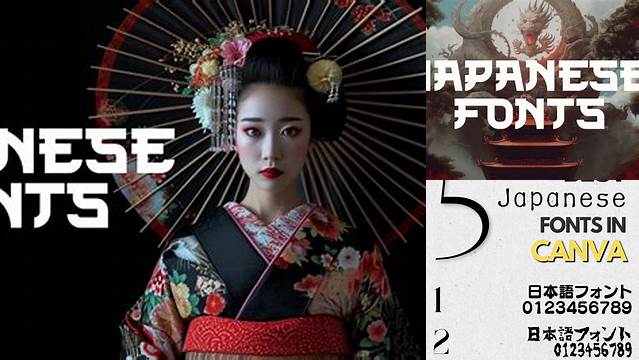
Free Japanese Fonts Generator: Your Ultimate Guide
Are you looking to spice up your designs with some awesome Japanese fonts? Well, you're in luck! This article is your ultimate guide to the free Japanese fonts generator world. We'll dive deep into how these generators work, the best ones to try, and some pro tips to make your designs pop. So, grab a cup of coffee, sit back, and let's get started, guys!
What is a Free Japanese Fonts Generator?
Alright, first things first: What exactly is a free Japanese fonts generator? Basically, it's a cool online tool that lets you create text using Japanese fonts. Think of it as your personal font playground! You can type in any text, choose from a variety of Japanese fonts, and see how it looks instantly. These generators are super handy for a bunch of things, from designing eye-catching graphics for social media to creating unique logos or even just experimenting with different font styles. And the best part? They're usually completely free to use!
Now, you might be wondering, why use a generator instead of just downloading fonts? Well, generators often have a pre-selected library of fonts that are ready to go, which can save you the hassle of searching and installing fonts on your computer. Plus, some generators offer extra features like text effects, color options, and the ability to download your text as an image. It's like having a mini-design studio at your fingertips. The key is to find a generator that suits your needs and offers the fonts you're looking for. Remember, the goal is to find something that's easy to use and helps you achieve the look you want. Don't be afraid to experiment and try out different generators until you find the perfect fit. There are tons of options out there, so the sky's the limit when it comes to Japanese font designs. So, get creative and have fun with it! You might discover some hidden gems and create designs that you never thought were possible. The world of Japanese fonts is waiting for you to explore.
Choosing the right generator can be a game-changer in your design process. Some generators specialize in specific font types, like calligraphy or modern styles, while others offer a wider range. Consider what kind of design you're working on and what aesthetic you're aiming for. If you're going for a traditional look, you might want to look for generators with classic calligraphy fonts. For a more modern feel, opt for generators that offer clean, sans-serif fonts. Also, don't forget to check the generator's features. Does it offer options for text effects, like shadows or outlines? Can you change the text color or background? These features can significantly enhance your designs. Make sure the generator is user-friendly, too. Look for a clean interface that's easy to navigate. You don't want to spend hours trying to figure out how to use the tool. The quicker you can get started, the better! Experiment with different generators and see which ones you find the most intuitive. Finally, think about the output options. Can you download your text as an image file (like PNG or JPEG)? Can you copy and paste the text directly into your design software? These options will make it easier to integrate your font creations into your projects. With the right generator, you can quickly and easily transform your ideas into stunning designs using the unique beauty of Japanese fonts.
Top Free Japanese Fonts Generators to Try
Alright, let's get to the good stuff – the generators themselves! Here are some of the best free Japanese fonts generators you should definitely check out:
1. Japanese Fonts Generator by [Generator Name 1]
This generator is a fantastic choice for beginners and pros alike. It's got a super user-friendly interface, making it a breeze to create Japanese text. You can choose from a wide variety of fonts, including some really cool calligraphy and modern styles. It also offers some basic customization options, like changing the text size and color. What makes it stand out is its ease of use and the quality of its font selection. You'll be able to create awesome designs without any hassle. With this generator, you can experiment with different fonts and see how they look instantly. It's a great way to find the perfect font for your project. Plus, the ability to quickly adjust text size and color means you have even more control over your designs. It's the ideal starting point for anyone who wants to create Japanese text without a steep learning curve.
2. Japanese Fonts Generator by [Generator Name 2]
If you're looking for something with more advanced features, this generator is a solid pick. It not only has a great selection of Japanese fonts but also offers options like text effects and shadow adjustments. You can really get creative with this one! This generator is excellent if you're looking to take your designs to the next level. Its advanced features allow you to create some really unique and eye-catching effects. From adding shadows and outlines to experimenting with different colors, you can customize your designs to your heart's content. It's a fantastic tool for those who want to push the boundaries of their creativity. It's a great option for those who want a bit more control over their designs. For example, you could use the shadow effect to make your text pop off the page or add an outline to make it stand out against a busy background. This generator also often provides a preview of your text in different layouts. Some generators even let you save your customized text, so you can easily come back and make changes later. So, if you're ready to dive deeper into the world of Japanese fonts, give this generator a try and see what you can create. You'll be amazed at the level of detail and customization you can achieve!
This generator frequently has a variety of fonts, including those with multiple language support. If you're working on a multilingual project, this can be a huge advantage. You can easily switch between Japanese, English, and other languages without having to switch tools. This flexibility saves time and keeps your workflow smooth. Some generators allow you to adjust spacing, kerning, and other fine details. These adjustments can make a big difference in the overall look and feel of your design. If you have a keen eye for detail, these features are a must-have. Overall, this generator is perfect for anyone who wants to create professional-looking Japanese text.
3. [Generator Name 3]
Another great option to add to your toolkit is this generator. It features a simple and clean interface, which makes it perfect for quick designs. While it may not have all the bells and whistles of the others, it gets the job done effectively. It's a fantastic choice for those moments when you need a quick design and don't have much time to spare. The streamlined interface and straightforward features let you focus on the creative process without getting bogged down by complicated settings. In short, it's a great way to produce Japanese text in a flash. It also gives a good selection of fonts. This generator can often provide options to share your text directly on social media or download your text in a variety of formats, like PNG and JPEG. Social sharing is a great way to show off your designs and get feedback from others. And the ability to download different formats gives you the flexibility to use your text in a wide range of applications. So, if you need something quick, this is a solid bet.
This generator may have some other beneficial features. For example, the ability to save and reuse your text creations can save you a lot of time, especially if you frequently design similar graphics. This can be very useful if you're working on a branding project or creating a series of social media posts. If you're planning on incorporating your designs into a website, check if the generator offers options for creating CSS code. This will allow you to customize the text on your site even further. These additional features make it easier to make sure your text looks great across different platforms.
Pro Tips for Using Japanese Fonts Generators
Alright, now that you know about some awesome generators, let's talk about some pro tips to make your designs shine:
- Experiment with different fonts. Don't be afraid to try out a bunch of different fonts until you find the perfect one for your project. Play around with different styles and see what looks best.
- Consider the context. Think about where your text will be used. Is it for a website, a poster, or social media? This will help you choose the right font and design style.
- Don't overuse fonts. Sticking to a maximum of two or three fonts in a single design can help maintain a clean and professional look. Avoid overwhelming your audience by using too many different styles.
- Play with colors and effects. Use color and effects, like shadows or outlines, to make your text more visually appealing. These can also help your text stand out against the background.
- Consider readability. Always make sure your text is easy to read. Choose fonts and styles that are legible, especially for longer pieces of text.